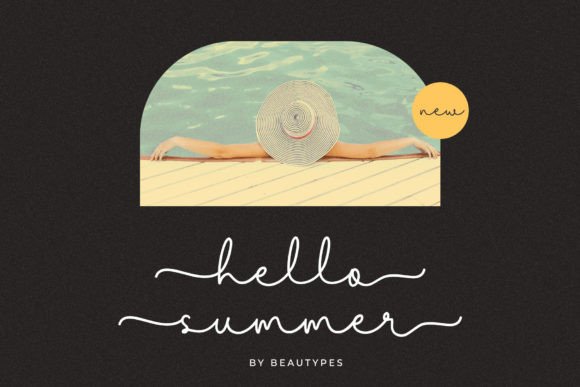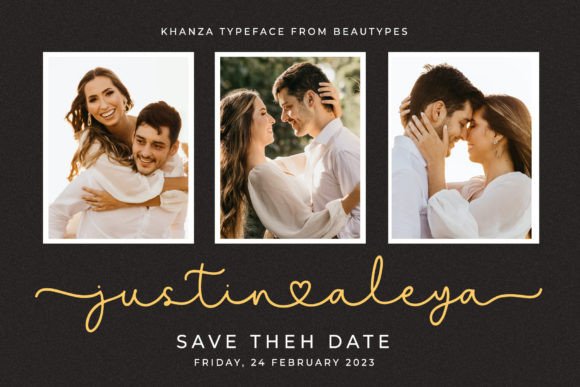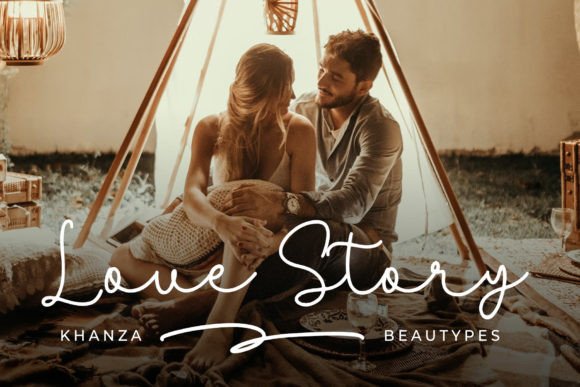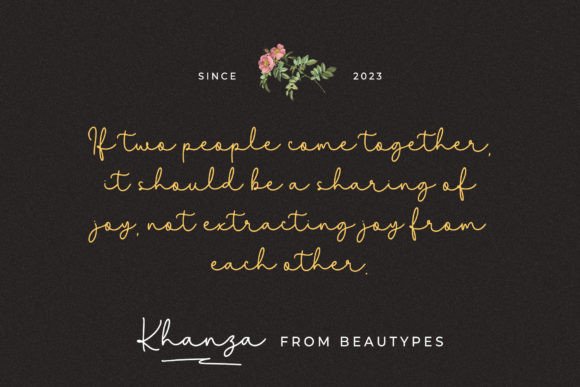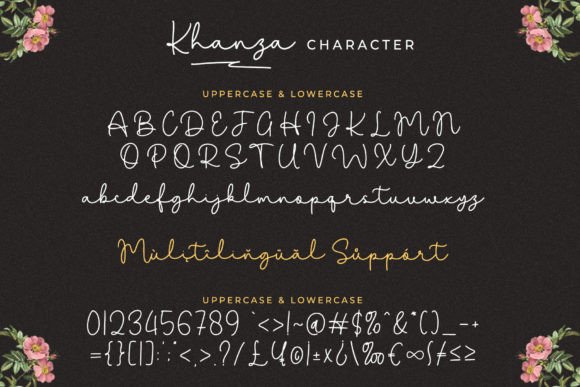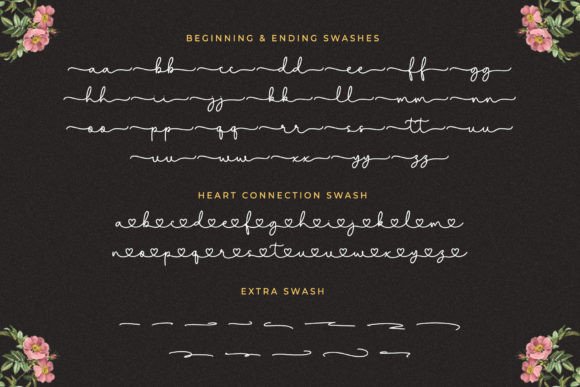
Introduction to Khanza Font
Khanza is a modern handwritten font, described by an elegant touch, perfect for your favorite projects.
It looks stunning on wedding invitations, business cards, quotes, thank you cards, greeting cards, Branding, logos, magazine, marketing materials, and every other design which needs a handwritten touch .
Key Features of Khanza Font
Why Choose Khanza Font?